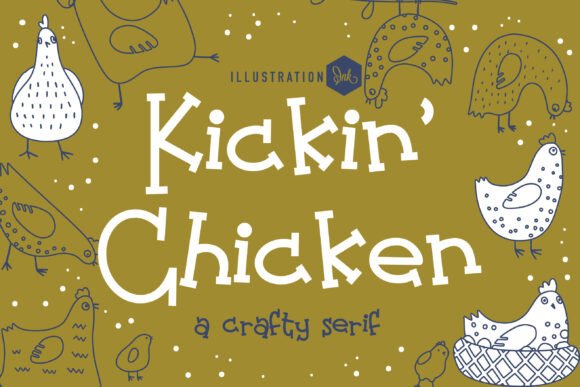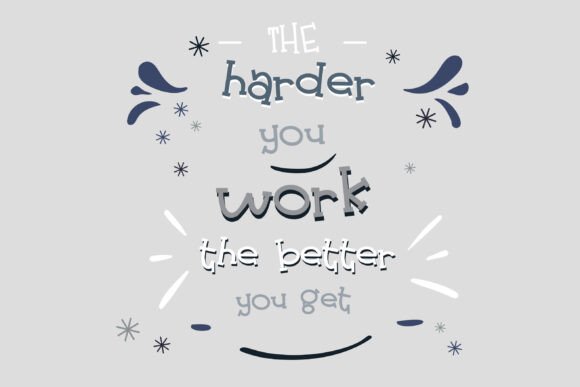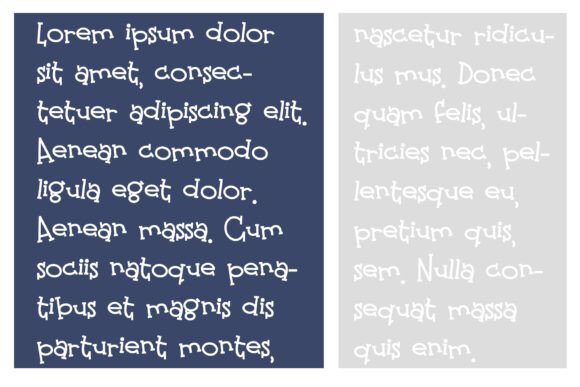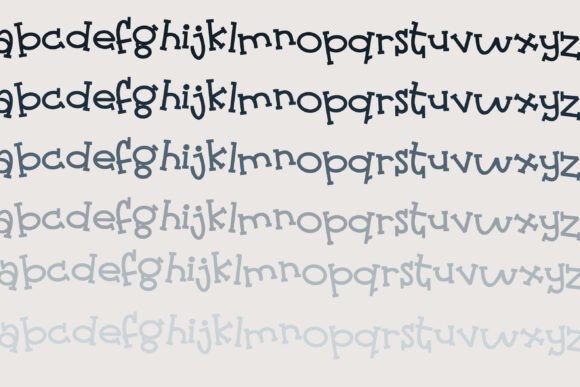
Kickin’ Chicken Font
About the Kickin’ Chicken Font
Explore the possibilities with Kickin’ Chicken Font, a font that offers both beauty and functionality. This hand-crafted font is a whimsical print with hand-crafted slab serifs throughout.
Kickin’ Chicken’s playful, slightly quirky personality makes it ideal for headlines, short text blocks on posters, or branding elements where a touch of fun is desired. It works exceptionally well for packaging of food products, children’s items, or anything targeting a younger demographic. However, its informal nature and relatively low x-height make it unsuitable for body text or UI elements requiring high readability.
For effective pairings, consider a clean sans-serif like Open Sans for body copy to balance the whimsicality. Alternatively, a more geometric sans-serif such as Futura would provide a sophisticated contrast. Pairing it with a delicate script font for secondary text could add a layer of elegance while maintaining the overall playful mood.
The font’s handcrafted feel projects a friendly, approachable brand identity, suggesting handcrafted quality and a touch of rustic charm. Avoid using it for projects demanding sophistication or high professionalism.